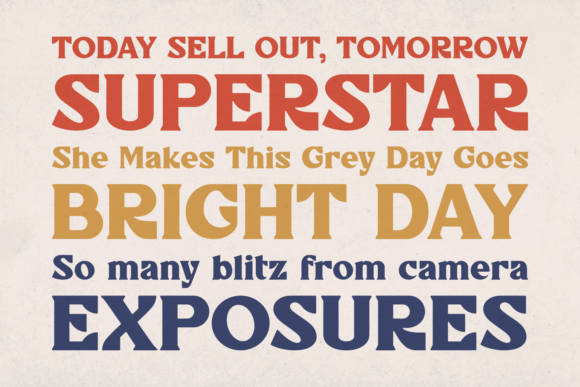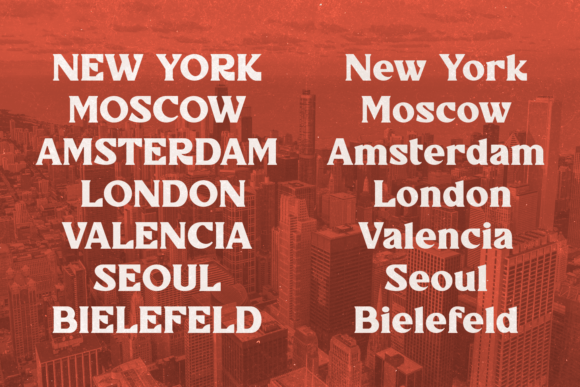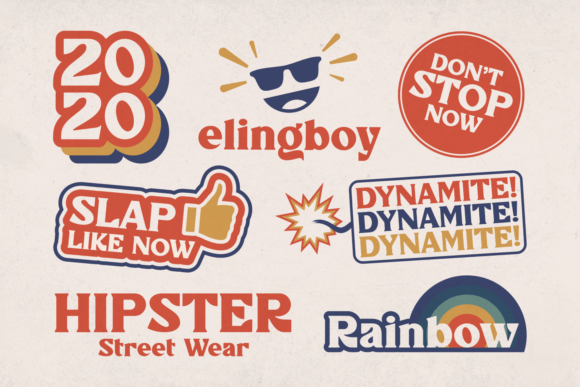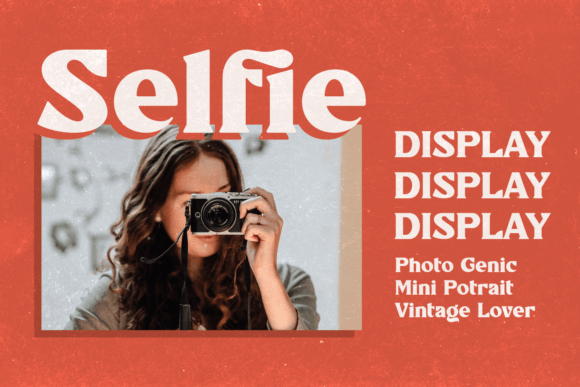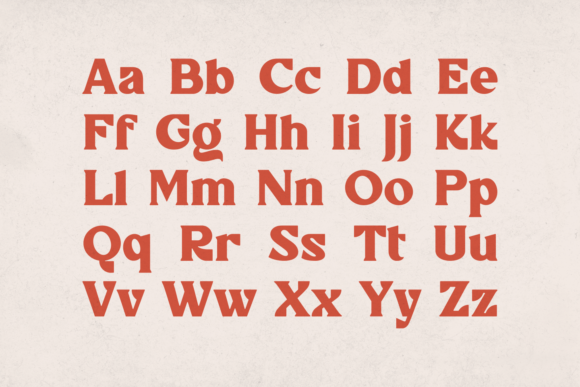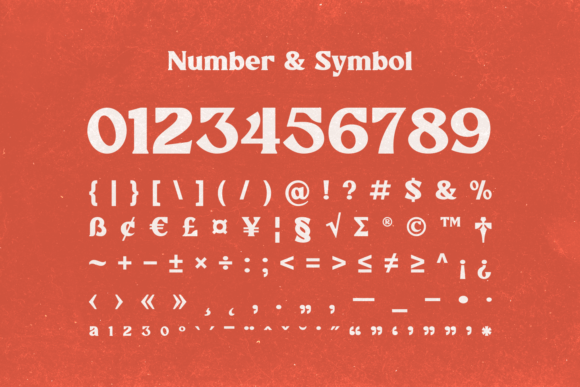
Eugello Font: The Ultimate Multipurpose Serif Font for Retro, Vintage, and Hipster Designs
Are you a designer or crafter looking for a font that can add a touch of uniqueness to your projects? Look no further than Eugello, a multipurpose serif font that is perfect for retro, vintage, and hipster designs. With its distinctive shape and versatility, Eugello is ideal for a wide range of projects, from branding and poster displays to logo designs, magazines, headlines, stickers, and more.
What Makes Eugello Font So Special?
Eugello font stands out from the crowd due to its unique shape, which is both elegant and quirky at the same time. Its serif design gives it a classic and sophisticated feel, while its subtle irregularities add a touch of playfulness and whimsy. This makes Eugello perfect for designers who want to create projects that are both nostalgic and modern.
Perfect for Retro, Vintage, and Hipster Designs
Retro, vintage, and hipster designs are all about embracing the past and reinterpreting it for the present. Eugello font is tailor-made for these styles, with its classic serif design and distinctive shape evoking memories of bygone eras. Whether you’re creating a logo for a vintage clothing store, a poster for a retro-themed event, or a social media graphic for a hipster cafe, Eugello is the perfect choice.
Versatile and Multipurpose
One of the best things about Eugello font is its versatility. It’s a multipurpose font that can be used for a wide range of projects, including:
- Branding: Create a unique and memorable brand identity with Eugello’s distinctive shape and classic serif design.
- Poster displays: Make a statement with Eugello’s bold and eye-catching design.
- Logo designs: Create a logo that stands out from the crowd with Eugello’s quirky and elegant design.
- Magazines: Add a touch of sophistication and elegance to your magazine with Eugello’s classic serif design.
- Headlines: Make your headlines pop with Eugello’s bold and attention-grabbing design.
- Stickers: Create fun and quirky stickers with Eugello’s playful and whimsical design.
Why Choose Eugello Font?
So why choose Eugello font for your next project? Here are just a few reasons:
- Unique shape: Eugello’s distinctive shape sets it apart from other serif fonts.
- Versatile: Eugello can be used for a wide range of projects, from branding to stickers.
- Retro, vintage, and hipster-friendly: Eugello is perfect for designers who want to create projects with a nostalgic or vintage feel.
- Elegant and quirky: Eugello’s design is both sophisticated and playful, making it perfect for a wide range of projects.
In conclusion, Eugello font is a multipurpose serif font that is perfect for retro, vintage, and hipster designs. Its unique shape, versatility, and elegant design make it ideal for a wide range of projects, from branding and poster displays to logo designs, magazines, headlines, stickers, and more. Whether you’re a designer or crafter, Eugello is a great choice for anyone looking to add a touch of uniqueness and sophistication to their projects.